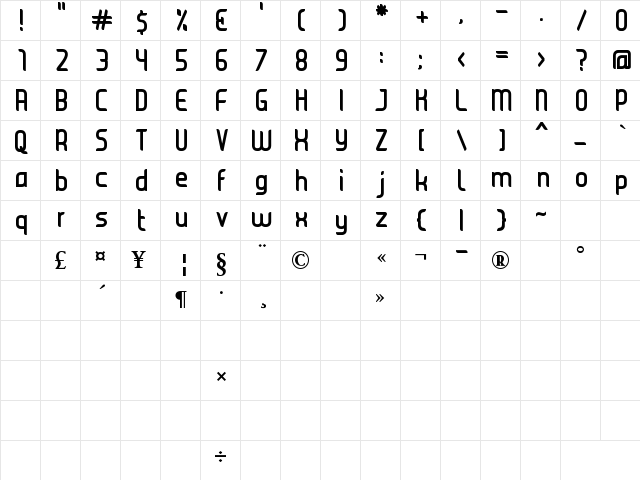
JUICE Bold Bold
| Designer | Dhany Arliyanti |
Design Context for JUICE Bold Typeface
JUICE Bold takes a measured approach to typography — its balanced proportions and neutral character make it a reliable workhorse for both digital and print work. The heavy weight commands attention and anchors typographic hierarchies.